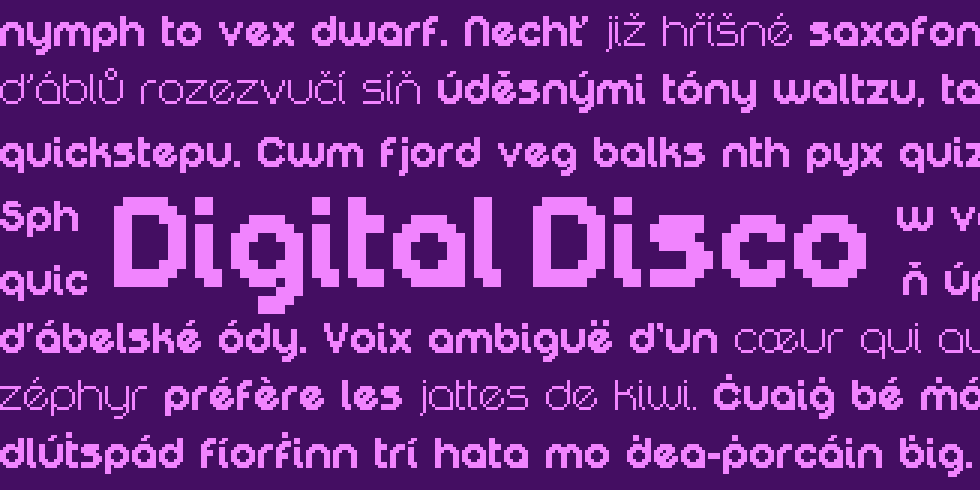
I was playing around with the idea of making a round font (as in a geometric sans serif, along the lines of Futura) but somewhere along the way I had pushed things so far they started to look… well, pretty groovy! I decided to split the idea of making a standard geometric sans serif into a separate font (Quadrunde) and take this design to funkytown.
Normally when creating an alphabet I break my own design “rules” in order to maintain legibility, but I played a bit looser with this one, since let’s face it… this isn’t the sort of thing that should ever be used for big chunks of text anyway.
I actually began work on the first version of Digital Disco just after starting Alkhemikal, and finished the first version before completing Alkhemikal, but as I was testing I began to wonder if I should make a lighter version as well… So, I did.
Honestly, I think at 100% size Digital Disco Thin is almost unreadable, but considering that most “Ultra Light” fonts suffer from the same issue, I don’t think it’s that unreasonable. The most important thing is that Digital Disco Thin complements the base version, and that’s all you really need from an additional style!